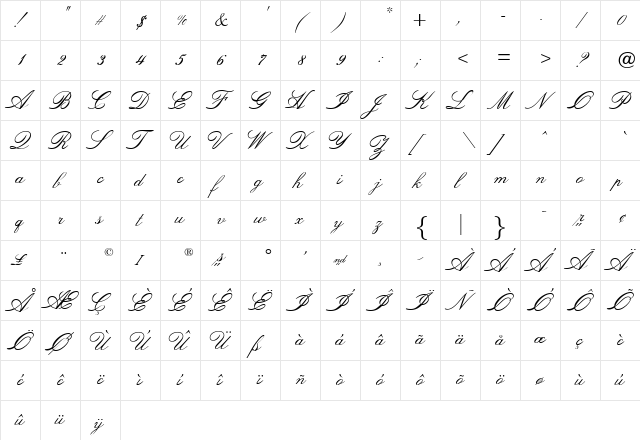
OPTI Venetian Script
Design Context for OPTI Venetian Typeface
OPTI Venetian brings a calligraphic fluidity to the page — its connecting strokes and expressive curves give it an unmistakably human quality.
Font Pairing: Combine OPTI Venetian with a simple geometric sans for maximum contrast — the tension between flowing curves and clean structure is a classic typographic pairing.
Pro Tip: Use OPTI Venetian for short runs of text — names, titles, or taglines. Extended body copy in script faces tires the eye quickly.